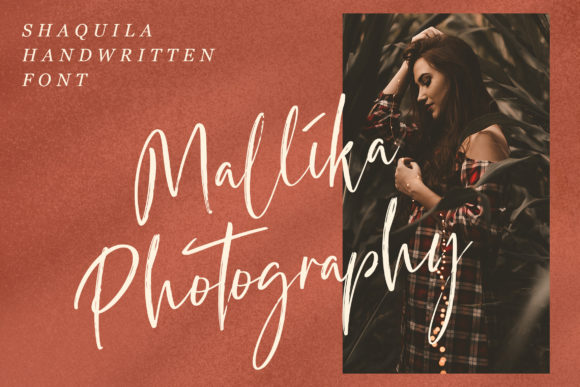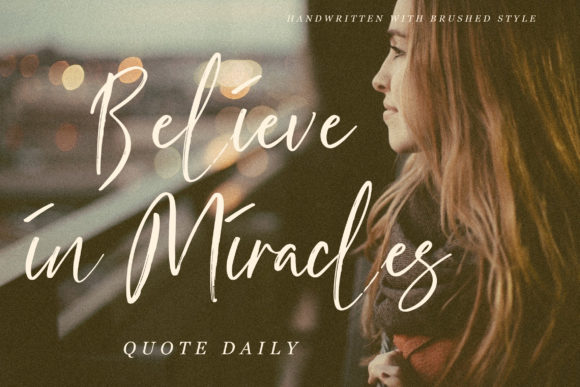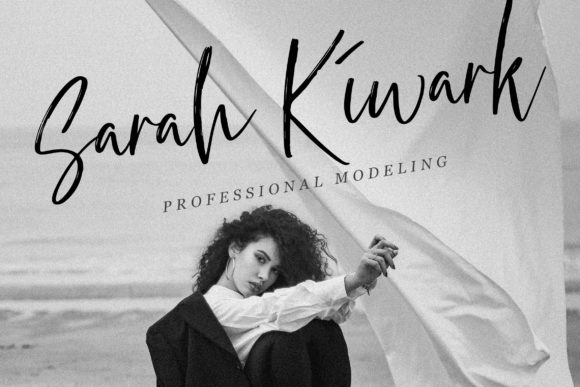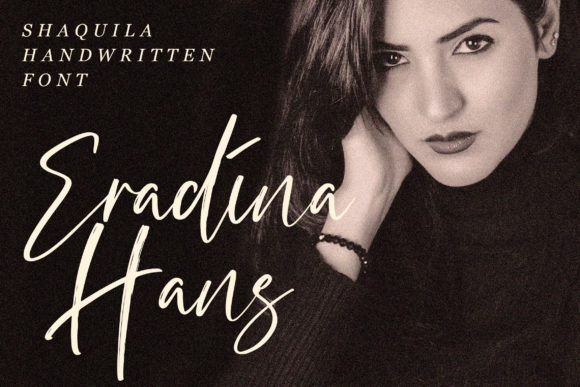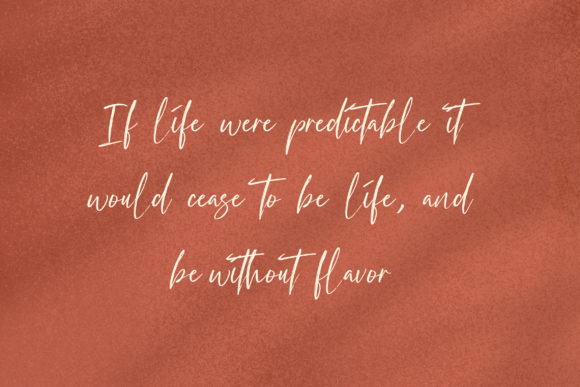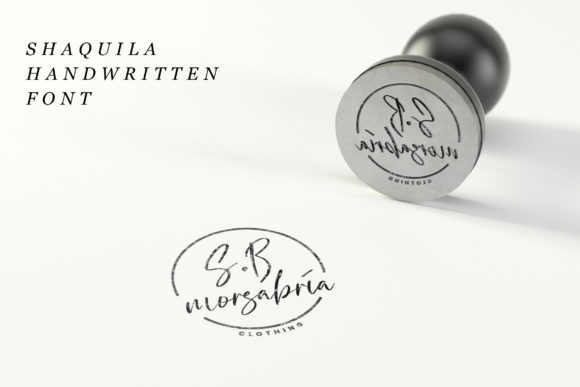
Introduction to Shaquila Font
Shaquila is a relaxed and delicate handwritten font.
This versatile script font has a wide spectrum of applications ranging from greeting cards to headlines and is guaranteed to add a dazzling feel to your next project .